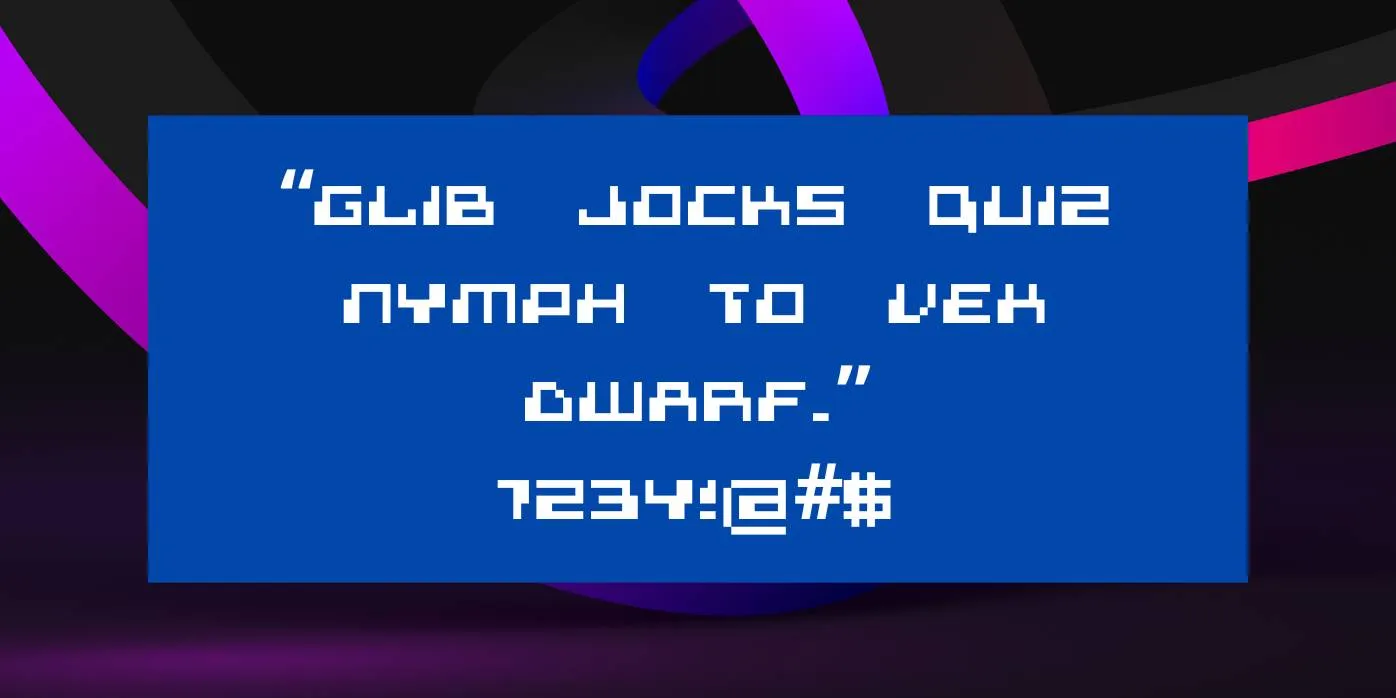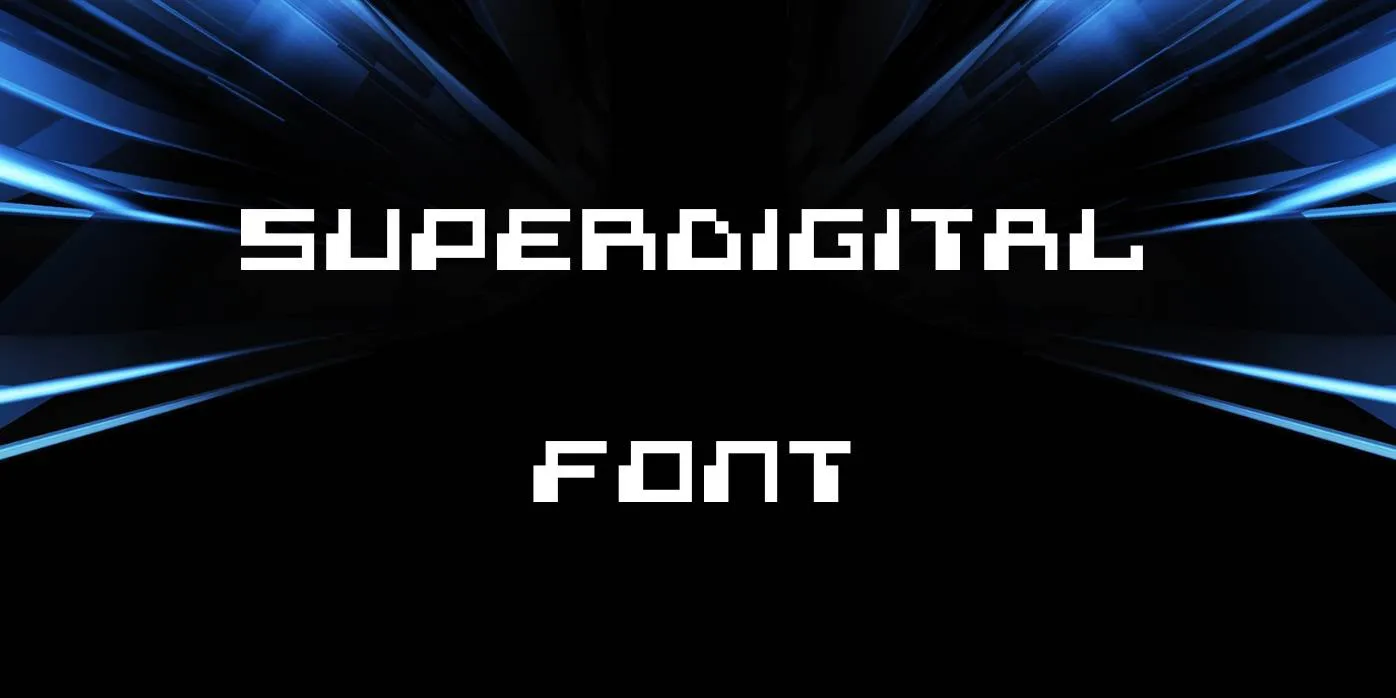
Superdigital Font
Superdigital Font is a unique display font that has an irregular type character appearance. This typeface is a stunning and awesome type of font. Sven Stüber is the designer of this texture. The characters of this font are stylish and attractive.
There are 96 amazing and stunning glyphs. The characters of this texture support all numbers. This typeface has only one style. This is called regular style.